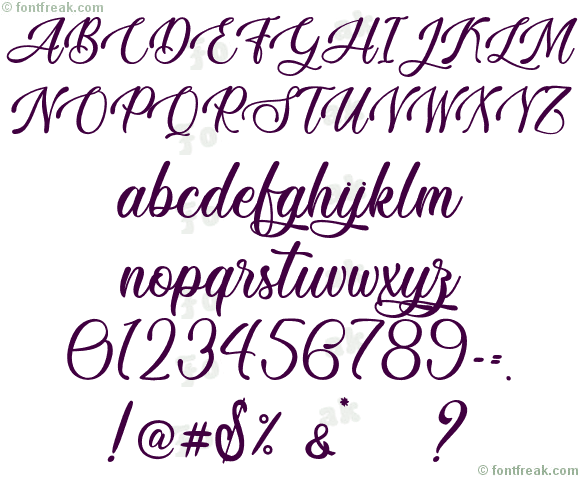
Vesta Night - Personal Use
About Vesta Night - Personal Use
Vesta Night - Personal Use font by Suthi Srisopha is a stunning script typeface that exudes elegance and charm. Designed with a flowing, cursive style, this font captures the essence of handcrafted typography. The strokes are gracefully varying in weight, creating a sense of movement and fluidity that is visually captivating. Its moderate contrast between thick and thin lines adds depth, while the well-considered spacing ensures readability, making it ideal for a variety of applications.
This beautiful typeface is particularly suited for creative projects that require a touch of sophistication. It shines in wedding invitations, where its romantic flair can set the perfect tone for the occasion. Additionally, Vesta Night is an excellent choice for greeting cards, allowing designers to convey heartfelt messages with style. Restaurant menus can benefit from this font as well, adding a touch of class to the dining experience. Furthermore, it is perfect for branding projects, especially for businesses that want to convey a luxurious image.
What sets Vesta Night apart is its unique ability to blend elegance with approachability. The font’s artistic flair makes it memorable, while its practicality ensures it can be used across various platforms and media. For those in search of a versatile and stylish script font, Vesta Night - Personal Use font free download is a fantastic choice that will enhance any design project.